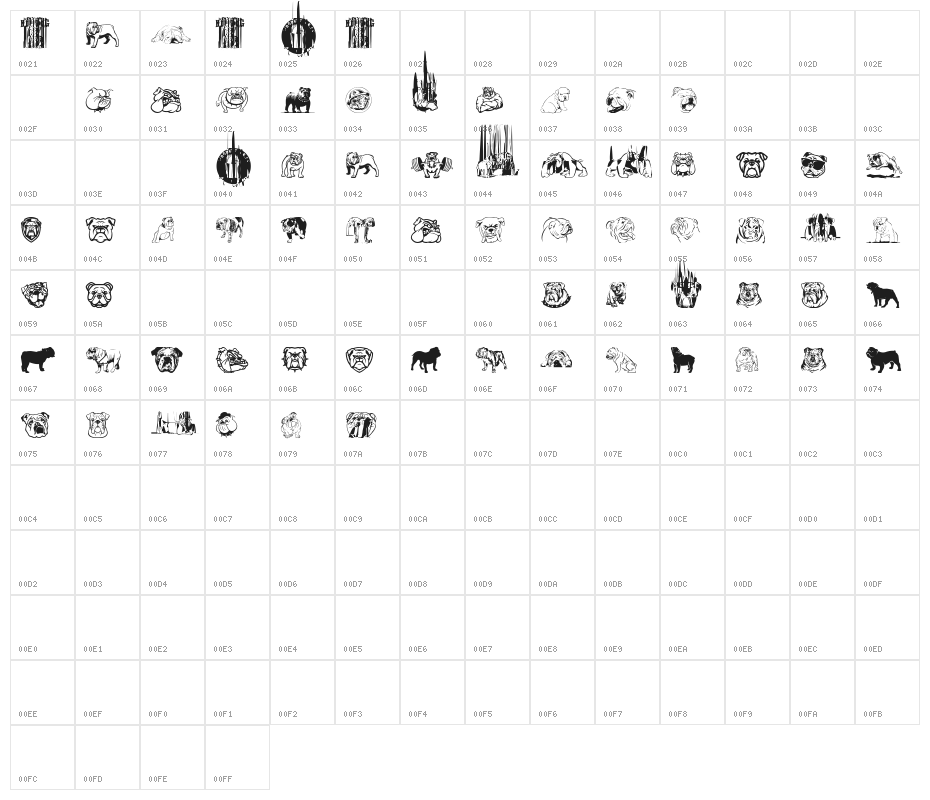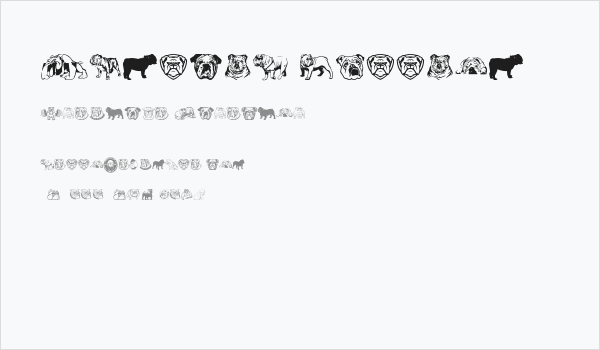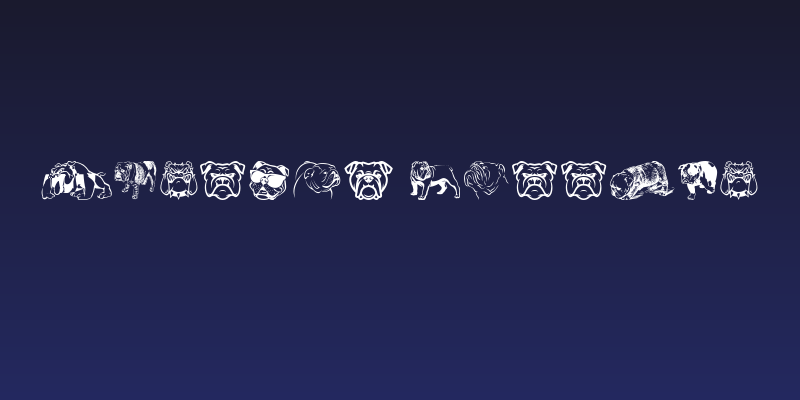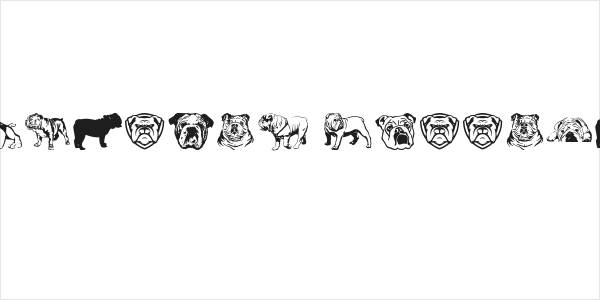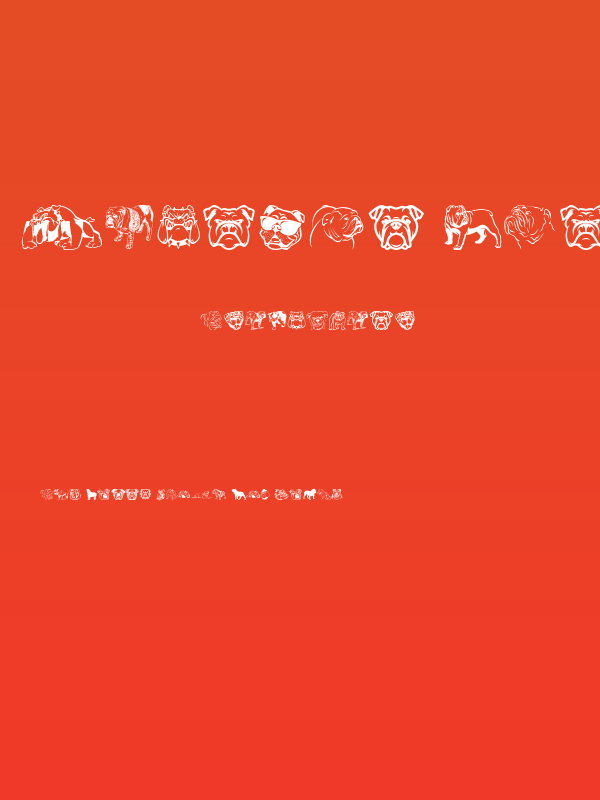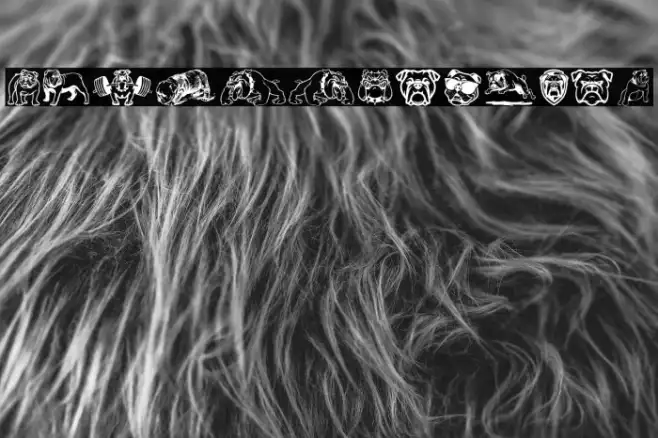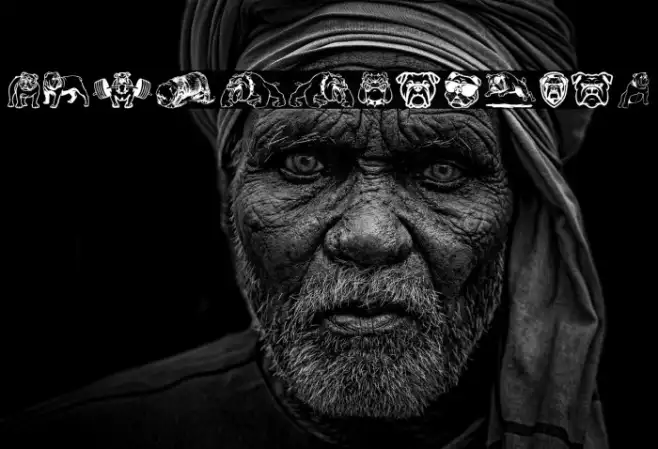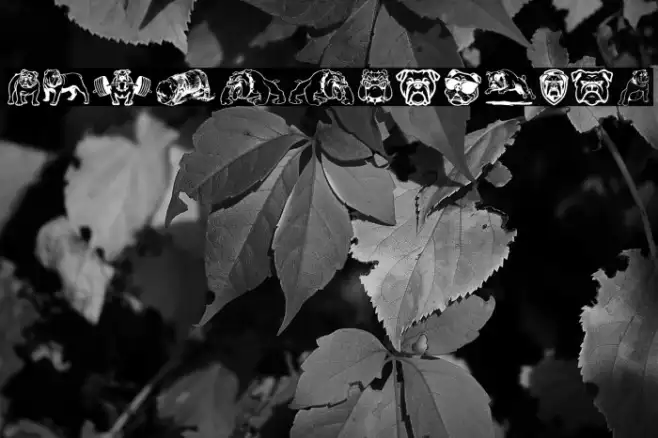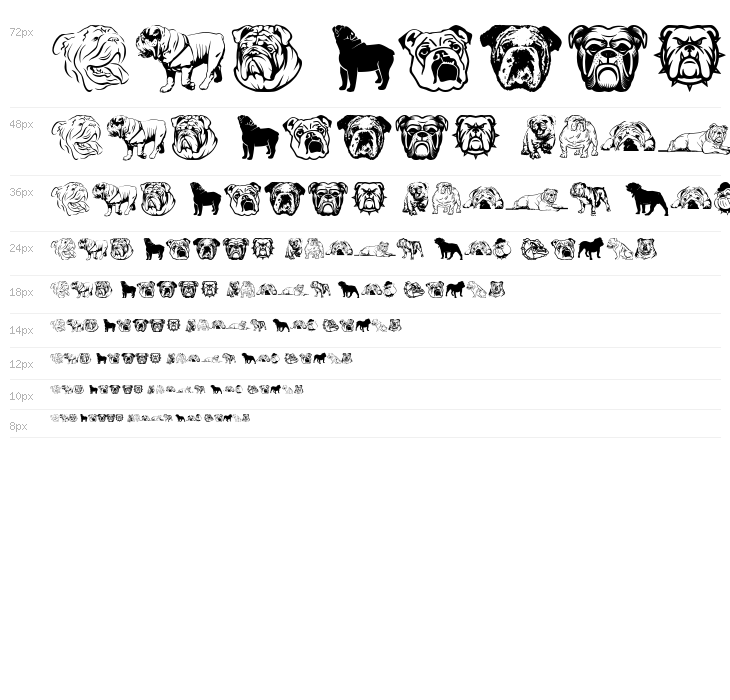
English Bulldog Font
English Bulldog Description
A decorative dingbat font featuring a wide variety of English Bulldog illustrations, including full-body poses, headshots, playful and serious expressions, and some stylized or cartoonish renderings. The glyphs are detailed, mostly black and white line art, with some solid silhouettes and a few logo-style emblems.
| Overall Style | Decorative, Playful, Thematic |
| Use Case | Logos, Posters, Themed Graphics, Merchandise |
| Proposed Projects | Pet branding, dog-related event posters, children’s books, animal shelter flyers, logo design, novelty merchandise. |